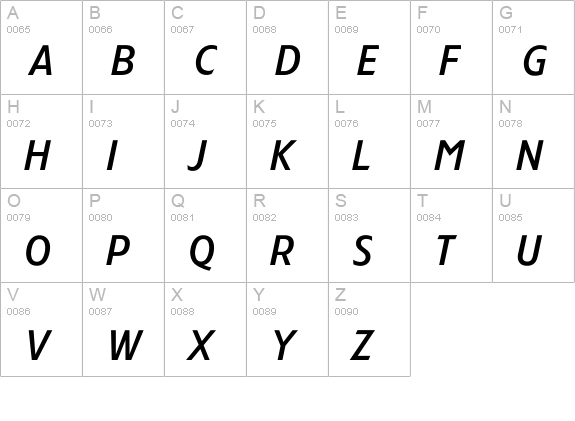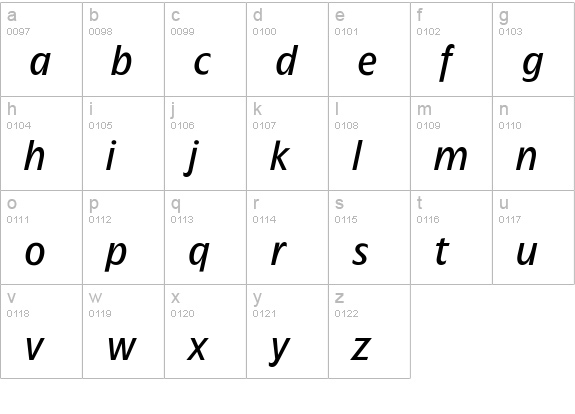
Introducing TFForever-MediumItalic font, a captivating and versatile typeface that effortlessly combines elegance with a touch of modern sophistication. This font is the perfect choice for those seeking a balance between timeless appeal and contemporary design. With its delicate slant and graceful curves, TFForever-MediumItalic adds a subtle flair to any project, making it ideal for branding, logo design, editorial layouts, and more. The medium weight adds just the right amount of emphasis, ensuring your message stands out while maintaining a harmonious balance within your design. But what truly sets TFForever-MediumItalic apart is its availability. We are thrilled to announce that this exceptional font is completely free to download at FontsMarket.com. Yes, you read that right - free! We believe that everyone should have access to high-quality fonts without breaking the bank, and TFForever-MediumItalic embodies this ethos perfectly. Whether you're a professional designer or a typography enthusiast, TFForever-MediumItalic is a must-have addition to your font collection. So don't miss out on this incredible opportunity to elevate your designs with elegance and style. Head over to FontsMarket.com today and download TFForever-MediumItalic for free – because great design should be accessible to all.